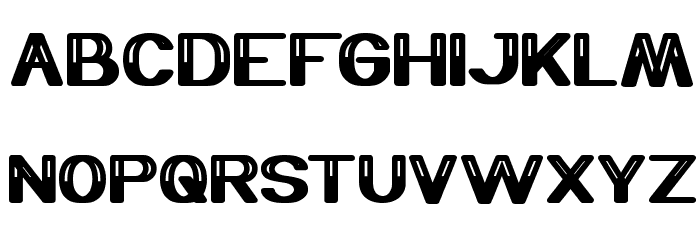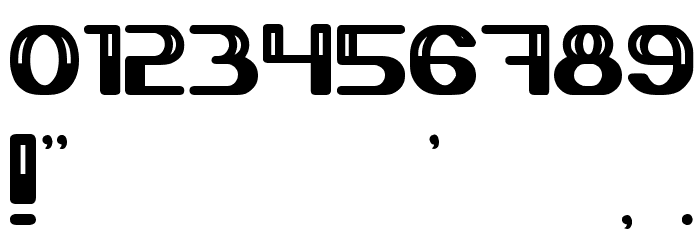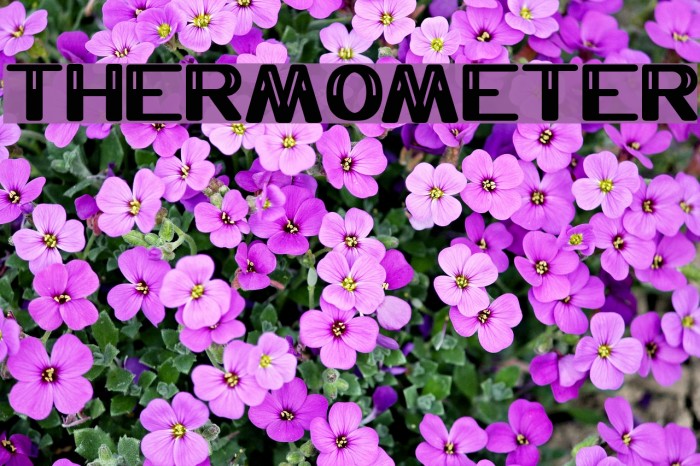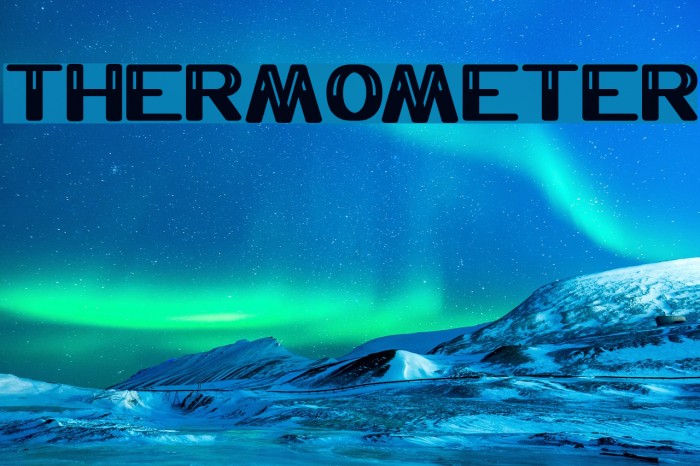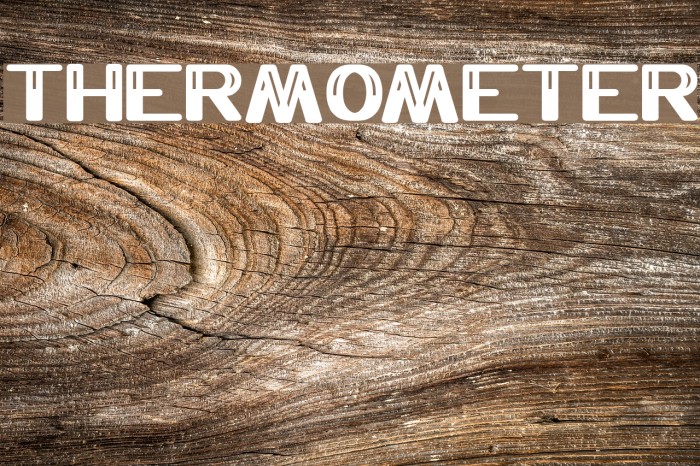
THERMOMETER Font
This font features a bold and modern design with a strong geometric influence. The characters are uppercase, with a consistent thickness throughout, giving it a robust and impactful appearance. The rounded edges and uniform stroke width contribute to a clean and contemporary look. The numbers and special characters maintain the same boldness, ensuring consistency across all elements. The font's design is well-suited for digital displays, offering clarity and readability. Its unique style makes it ideal for projects that require a modern and assertive typeface.
A bold, geometric font with a modern and impactful design.
- Proposed Projects: Ideal for digital displays, branding, headlines, and advertising materials.
- Use Case: Headlines, Logos, Digital Displays